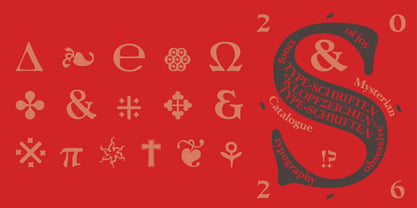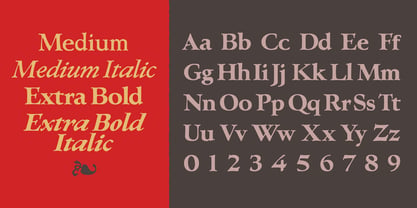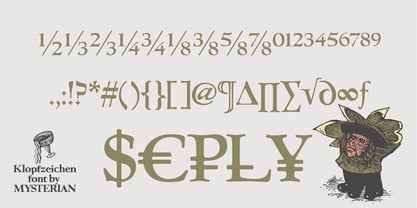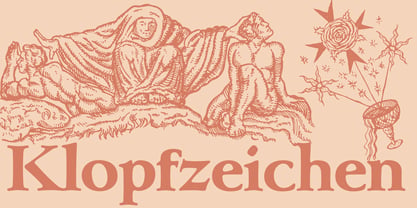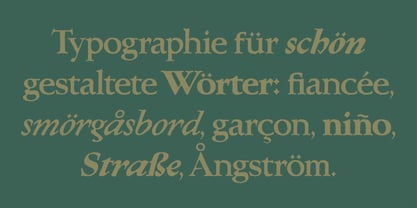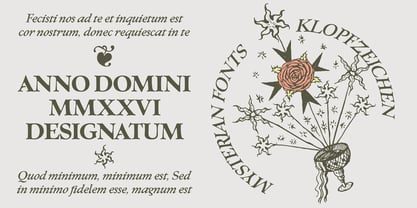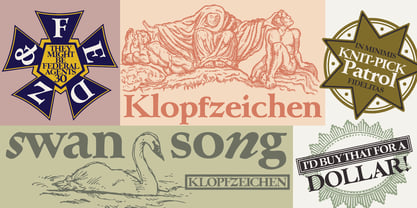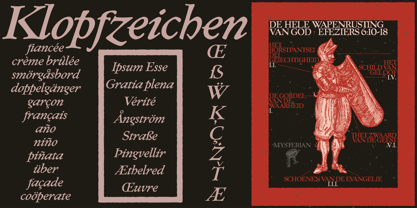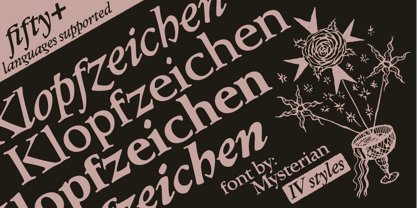
Klopfzeichen
by MYSTERIAN
The Klopfzeichen Font Family was designed by Caleb East and published by MYSTERIAN. Klopfzeichen contains 4 styles and family package options. More about this family
A hand-drawn, quasi-humanist serif with a warm, expressive voice, this typeface draws inspiration from the timeless elegance of Garamond, the charm of Goudy, and the monumental clarity of Friz Quadrata. The result is a characterful yet versatile font that feels equally at home in refined print work and bold, illustrative design. With support for 50+ languages and a thoughtfully crafted extended Latin character set, it’s built for both beauty and utility—whether you're setting liturgical texts, editorial layouts, or distinctive branding. Fun fact for the musically inclined: “Klopfzeichen” was the debut album of the pioneering kosmische musik group Cluster. Who knows—maybe the next typeface will be called “Zuckerzeit.”